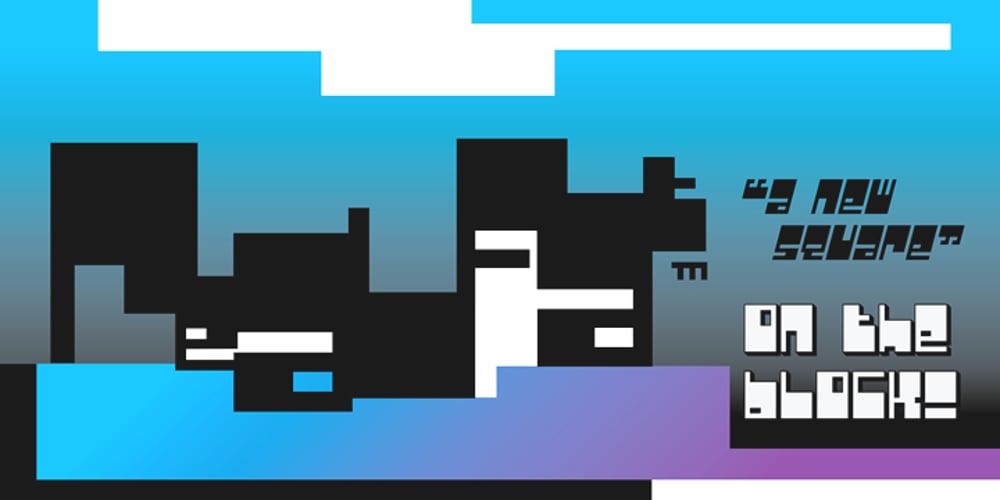
Real Fat
Real Fat font
Real Fat Font Family was designed by Patrick Bloom and published by vanAllerlei. Real Fat contains 4 styles and family package options. RealFat is a typeface that has been started with the intention to create a very squared bold font with a futuristic look and feel. The squared shapes also refer to the architecture of big city buildings with small windows. This font fits perfect on modern posters, flyers and other artwork or pixel based work. Most characters have the same width and height and are perfect ‘building-blocks’ for typographic compositions.